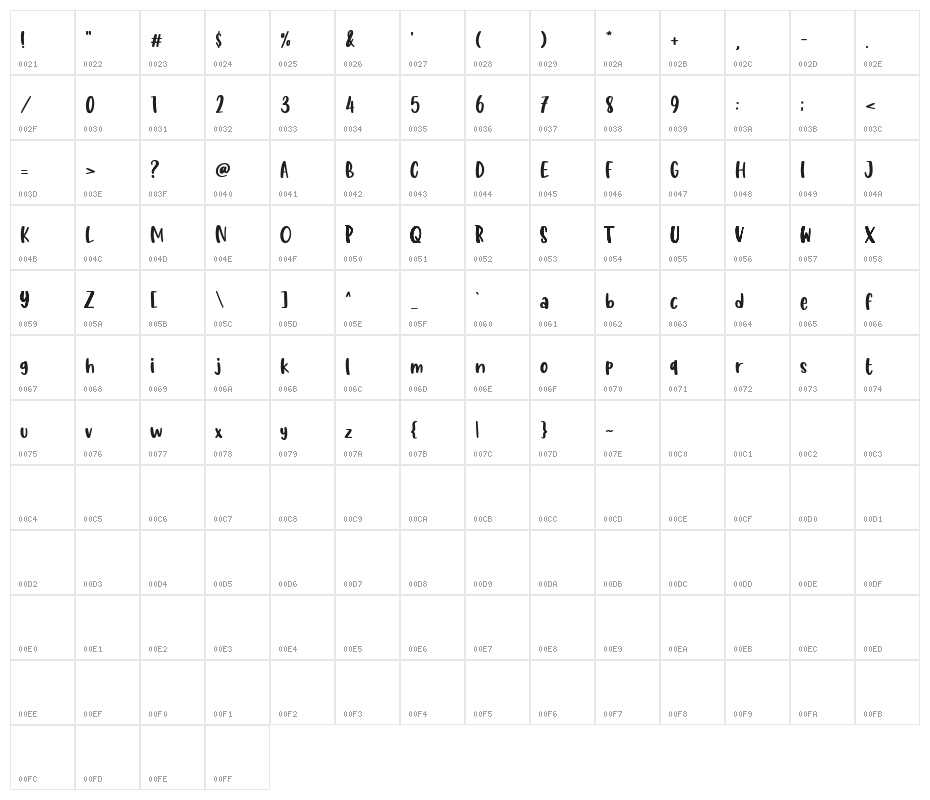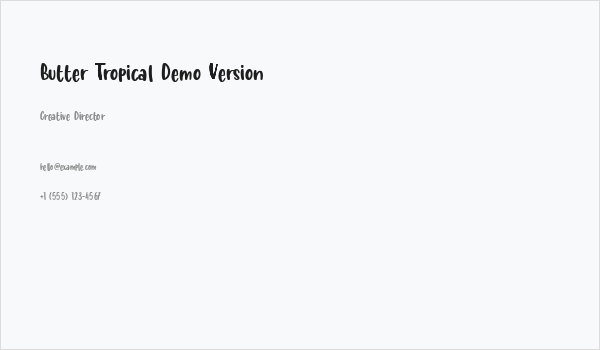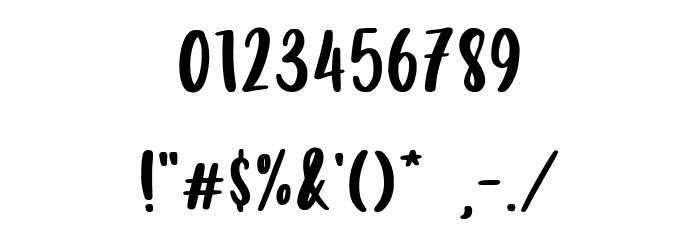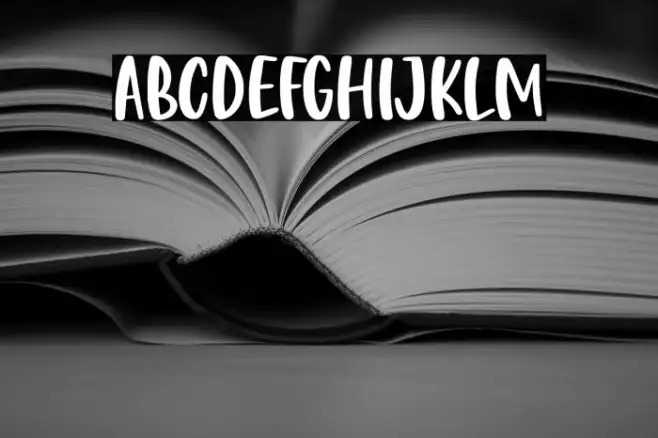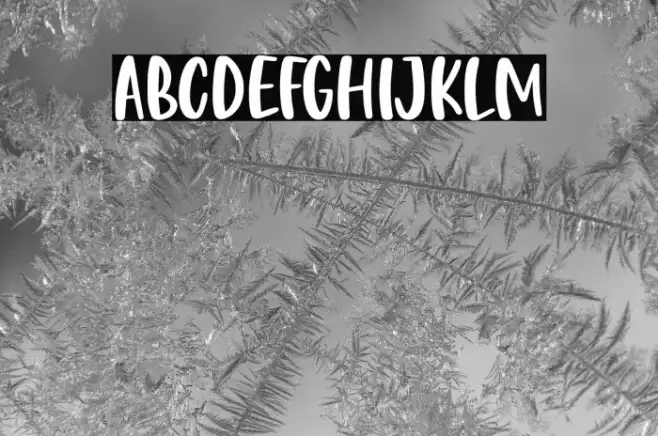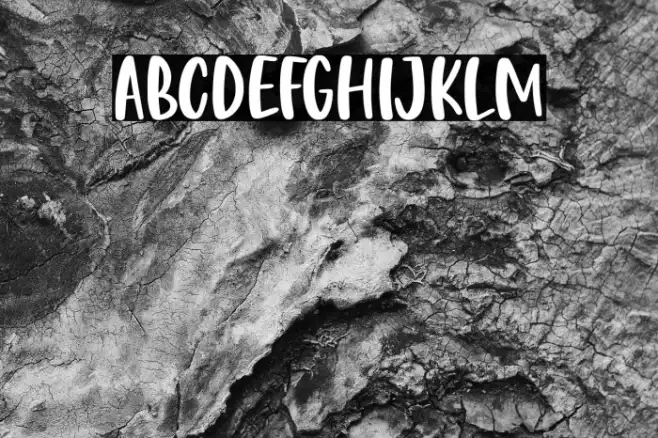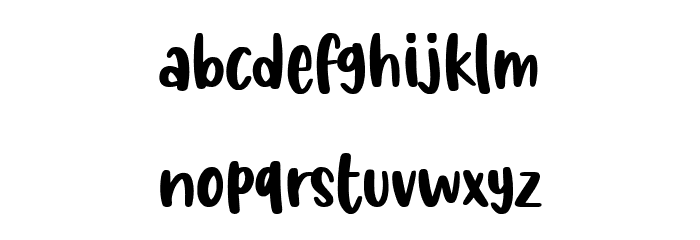
Butter Tropical Demo Version Font
Butter Tropical Demo Version Description
This font features a playful and lively design, characterized by its bold and rounded letterforms. The strokes are thick and consistent, giving it a strong presence on the page. The letters have a hand-drawn, organic feel, with slight variations that add to its charm. The uppercase and lowercase letters are well-balanced, maintaining a cohesive look throughout. The numbers and special characters are equally bold and match the overall style, making it versatile for various uses. Its friendly and approachable appearance makes it ideal for projects that require a touch of whimsy and creativity.
| Proposed Projects | Ideal for children's books, playful branding, greeting cards, and social media graphics. |